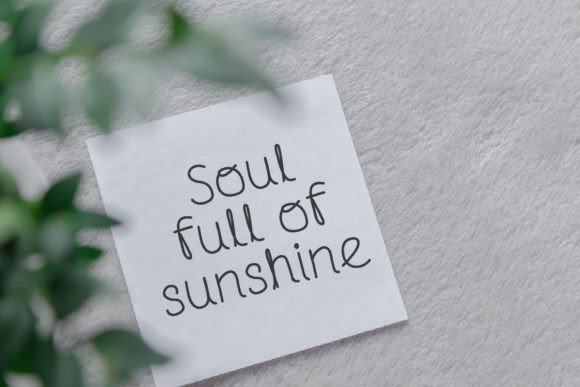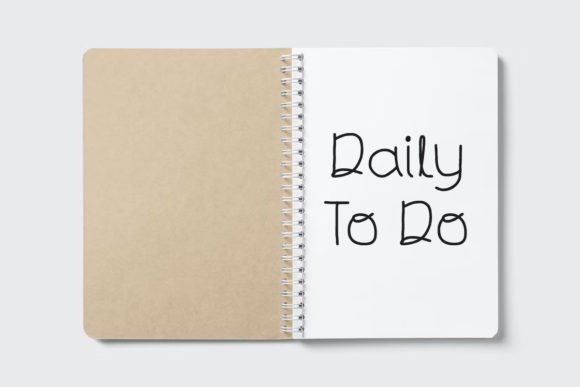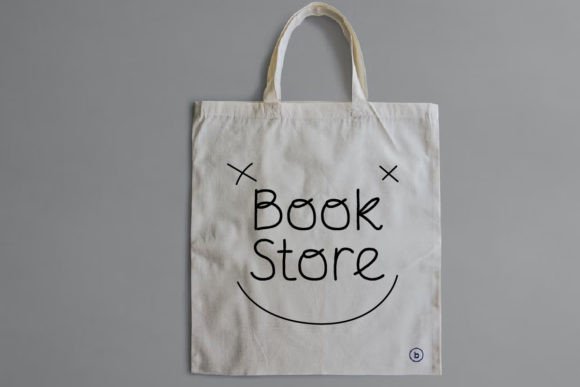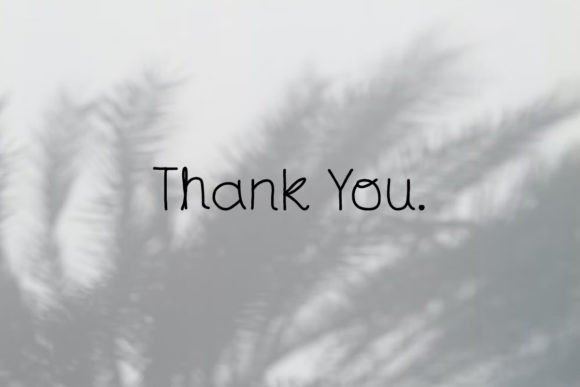
Quick Smart Font
Introducing Quick Smart, a simple and monoline font that exudes an authentic organic vibe! This font is perfect for any project that requires a personal and human touch.
The key features of Quick Smart include its simplicity and monoline design, which contribute to its clean and straightforward appearance. The font’s organic vibe adds a touch of authenticity, making it well-suited for a range of creative projects.
For various design projects, Quick Smart is versatile and adaptable. Its simplicity allows it to complement different styles and aesthetics while still maintaining a personal and human touch.
Whether used for branding, logos, packaging, or other creative applications, Quick Smart stands out with its clean lines and authentic feel. The font’s organic vibe brings a warmth and approachability that can enhance the overall appeal of your designs.
In conclusion, Quick Smart is a simple and monoline font designed to bring a personal and human touch to your creative projects. Choose Quick Smart for projects that require authenticity and simplicity, creating visually appealing and engaging outcomes across a variety of applications.